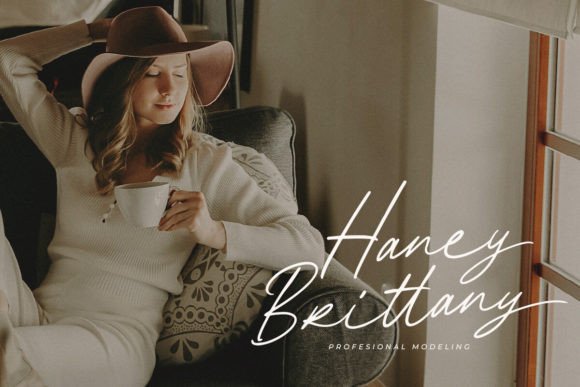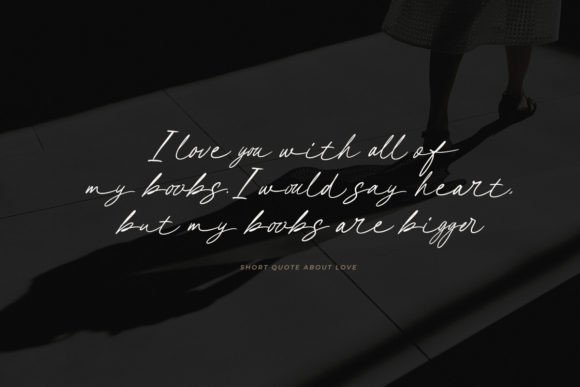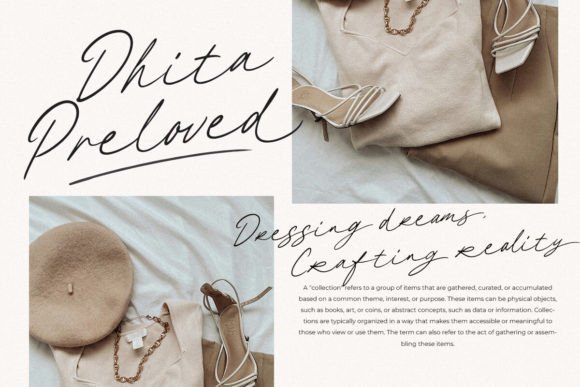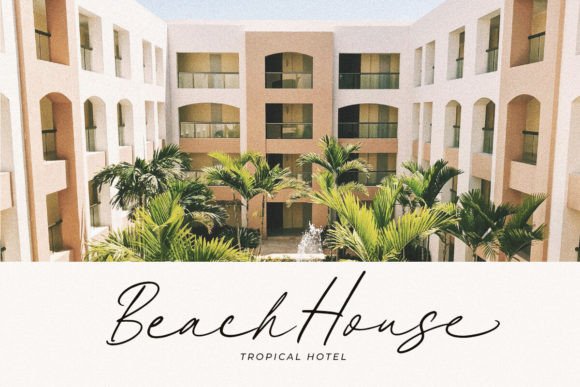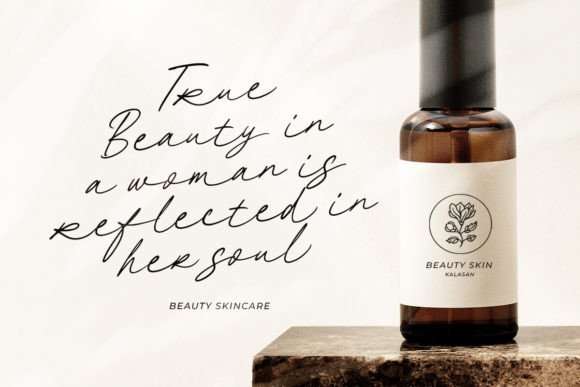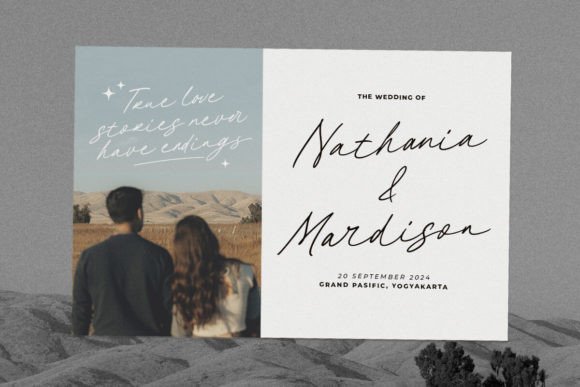
Introduction to Beloved Paradise Font Font
Fonts play a crucial role in design, and the Beloved Paradise Font font is a typeface that brings both character and versatility to any project. Whether you’re working on a branding project, a website, or a print design, the Beloved Paradise Font font offers a unique style that can elevate your work.
Beloved Paradise is a beautiful signature script based on manual handwriting.
The stylistic alternate, ligatures, and the tick and thin stroke make this font look a real handwriting instead of typing a font This type of font is perfectly made to be applied especially in logos, and other various formal forms such as invitations, labels, logos, magazines, books, greeting/wedding cards, packaging, fashion, makeup, stationery, novels, labels or any type of advertising purpose.
Key Features of Beloved Paradise Font Font
Why Choose Beloved Paradise Font Font?
The Beloved Paradise Font font is more than just a typeface – it’s a design tool that helps you communicate your message with style and clarity. Its unique character set and versatile design make it suitable for a wide range of applications, from elegant invitations to bold headlines.
With its carefully crafted letterforms and balanced proportions, the Beloved Paradise Font font ensures readability and visual appeal across all mediums.
What makes Beloved Paradise Font font special?
The Beloved Paradise Font font stands out with its unique design, exceptional readability, and versatility across various design applications.